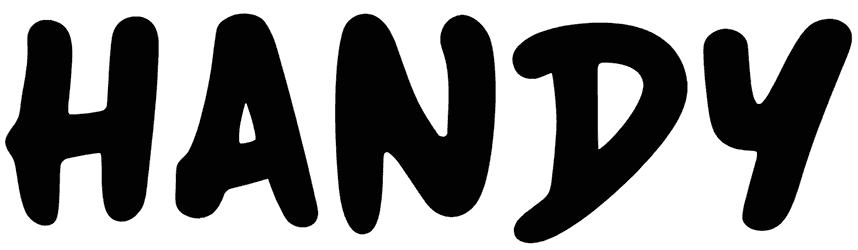
IM Handy Font
Here is IM Handy, a bold, playful handwritten font, designed casually to evoke a fun, childish feel in your work. You should know before downloading that it doesn’t support lowercase letters and most punctuation. This ey…
Here is IM Handy, a bold, playful handwritten font, designed casually to evoke a fun, childish feel in your work. You should know before downloading that it doesn’t support lowercase letters and most punctuation. This eye-catching font is the best choice for comic books, cartoon titles, party invitations, book covers, and baby clothing.
IM Handy is a handwritten font marker & pen font. 2 styles with over 200 unique characters in them so you can use stylistic alternates for all letters to give your design a more handwritten look.